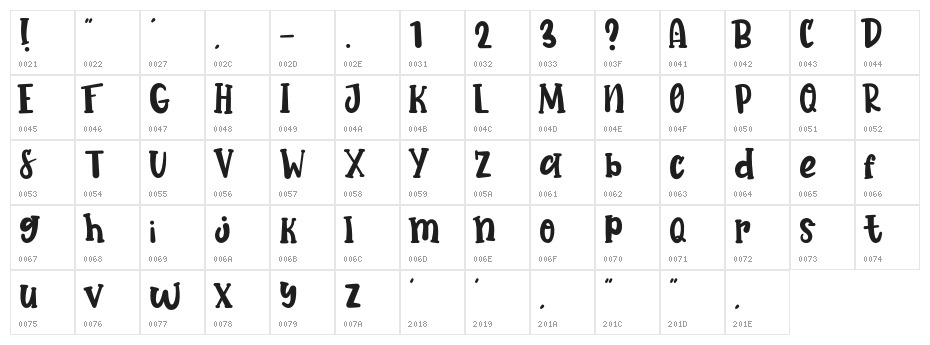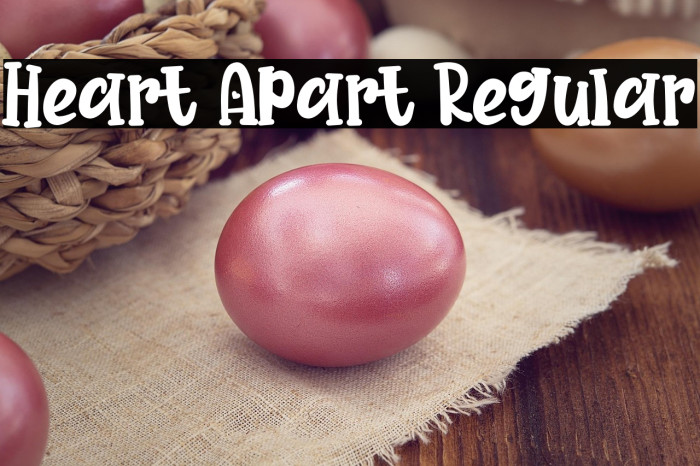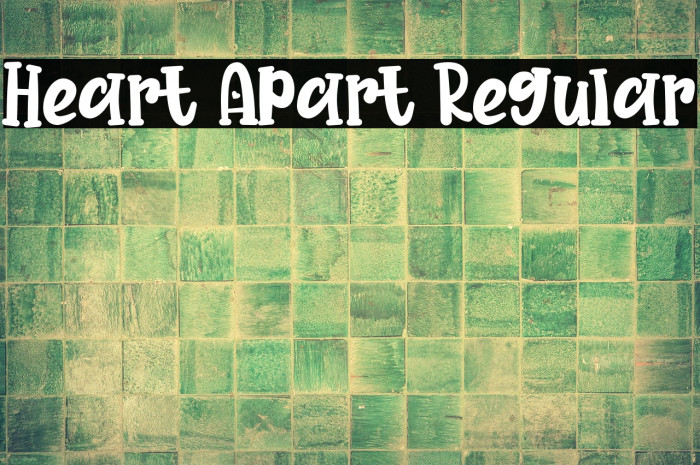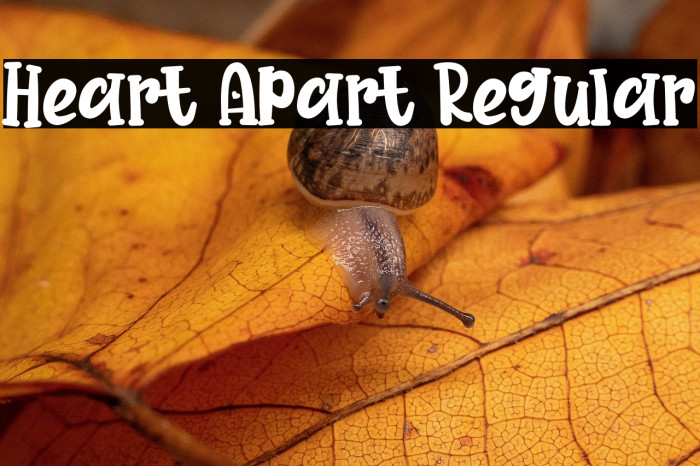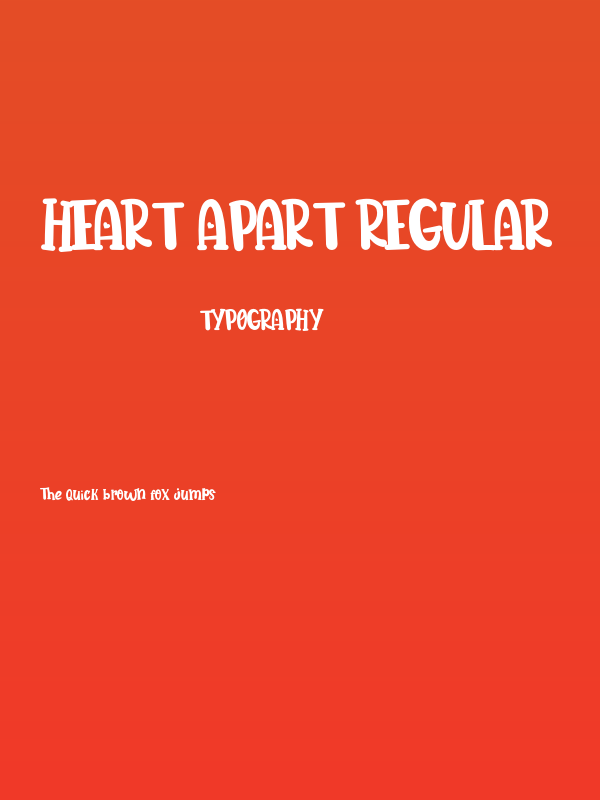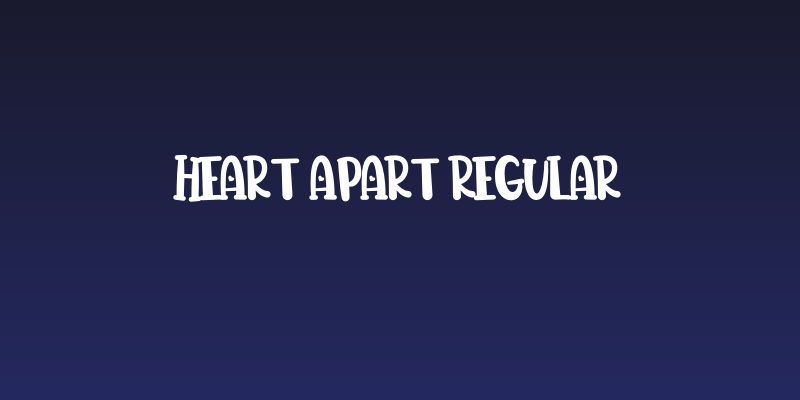
Heart Apart Regular Font
Heart Apart Regular Description
This playful and bold font features a hand-drawn style with a whimsical touch. The uppercase and lowercase letters are characterized by their thick strokes and slightly uneven lines, giving them a casual and friendly appearance. The font has a unique charm with its exaggerated curves and loops, particularly noticeable in letters like 'g', 'j', and 'y'. The numbers maintain the same playful style, ensuring consistency across all characters. The absence of certain special characters is noted, but the available ones like the exclamation mark and question mark retain the font's distinctive style. This font is perfect for projects that require a fun and informal vibe.
| Proposed Projects | Ideal for children's books, playful branding, greeting cards, and casual posters. |